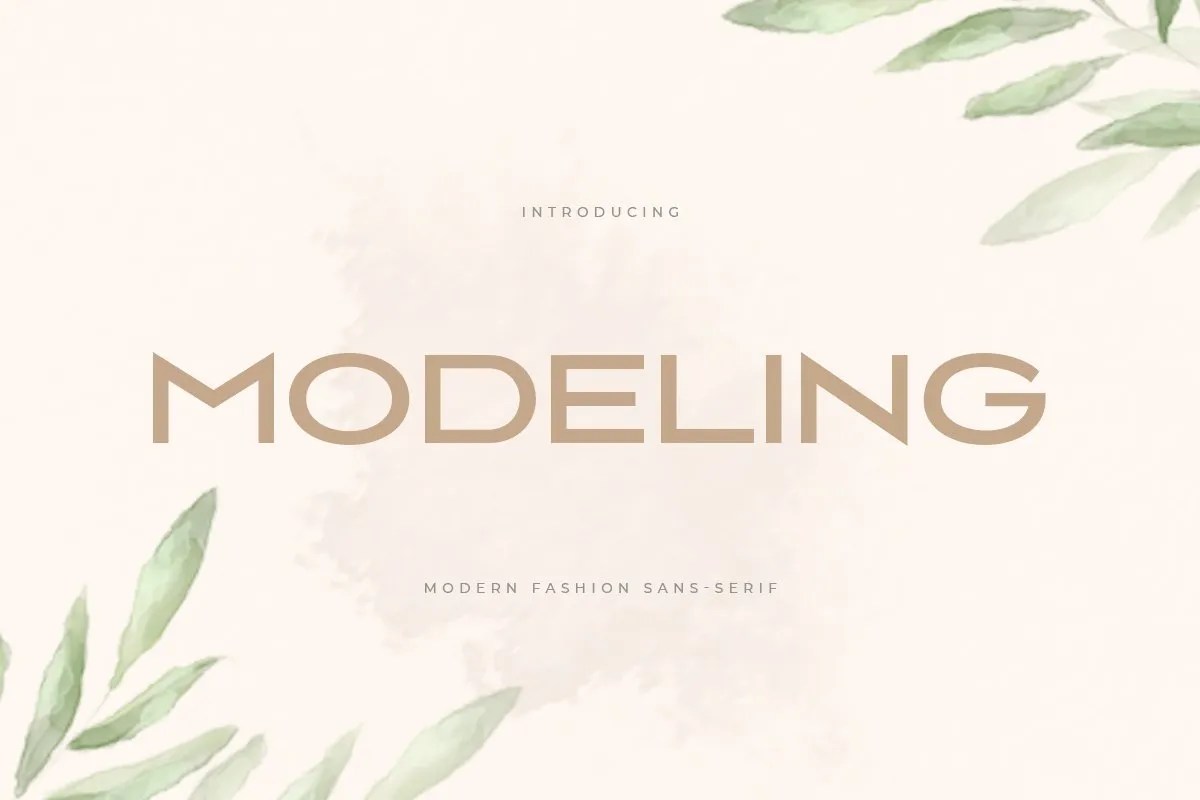
Modeling Font
Modeling emerges as a paragon of modernity in the realm of typography, embodying the essence of simplicity and precision. With its immaculate sans serif design, characterized by crisp lines and subtle curves, this font exudes a sophisticated charm that captivates the eye.
Designed to seamlessly integrate into a variety of design tasks, Modeling infuses a sense of contemporary flair into any text or layout it graces. Its clean lines and precise structure lend a touch of refinement to every composition, elevating the visual appeal with effortless elegance.
From sleek branding projects to minimalist website designs, Modeling brings a sense of clarity and sophistication to every endeavor. Whether used in product packaging, signage, or editorial layouts, its versatility knows no bounds, offering a timeless aesthetic that transcends trends.